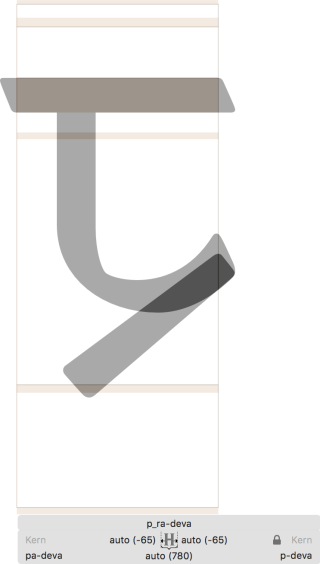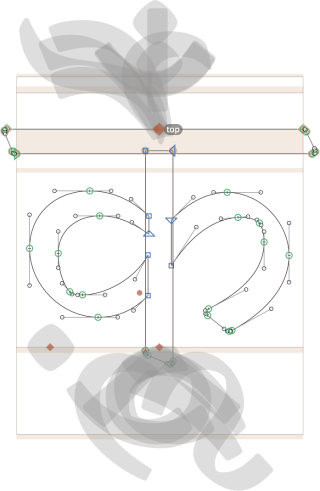
Creating a Devanagari font
Devanagari, used for languages such as Hindi, Marathi, Nepali, and many more, is the widest used script in India. While each designer might have their own workflow, this tutorial illustrates our recommended step-by-step process to build a Devanagari font by utilizing all of Glyphs’ cool features!
Setting up a Devanagari font file
When you create a new file in Glyphs (File > New, Cmd-N), it will open a window with Latin characters by default. There are two ways to add glyphs for Devanagari – one through Glyph > Add Glyphs (Cmd-Shift-G), or from the sidebar under the Languages > Devanagari section. Right-click on the subcategories inside Devanagari to see a list of glyphs included in each section then you can select the ones to add to the font:
You can see that all Devanagari glyphs have descriptive glyph names and a -deva suffix. This makes it possible for the app to determine the script of the glyph and automatically build the appropriate OpenType code later on.
The first step
Let's start with the most basic element of a Devanagari letter, the vertical stroke as found in aaMatra-deva. This defines the most basic proportions of our Devanagari letterforms, and it is used in most glyphs. So it would be great if we could design it once, and use it as a component in all the other glyphs needing it. You will find this character listed in the sidebar under Languages > Devanagari > Vowels. Or you can manually add it by typing Cmd-Shift-G, then, in the upcoming dialog, aaMatra-deva and pressing the Generate button.
You can also go ahead and add a value for the shoulder-line with the shoulderHeight custom parameter in File > Font Info > Masters (cmd-I). This will help the placement of anchors in not only the aaMatra-deva, but many other glyphs as well.
A note about spacing: Devanagari usually has a connecting headline, so you will probably want to extend the headline out slightly, so the sidebearings have negative values. You can define a standard value here and it will apply to many glyphs later on as well. Don’t worry, if you change your mind later, it’s very easy to update everything at once.
Setting anchors
It is never too early to start thinking about anchors. Most vowel and intonation marks will align in the same place relative to the vertical stem, so we can simply add anchors to the aaMatra-deva and they will be automatically copied to any glyph using this as a component. With the shoulderHeight defined, you only need to run Glyph > Set Anchors (Cmd-U), and the anchors will be automatically added at the correct vertical height. You may need to move them horizontally depending on your design.
Building composites from half-consonants and half-forms
Now we can prepare the components needed for the consonants. Most of the consonants are constructed with a half-form connected to the aaMatra-deva. These half-forms are not only used to form the full consonants, but also to build conjuncts – the ligatures of two or more consonants where the inherent vowel aaMatra-deva has been deleted (e.g. ‘pepper’ = पेप्पर). More about conjuncts later, let’s first design the p-deva, which is the half-form of pa-deva. You may now want to go ahead and add the half-forms from the aptly named Halfform section in the sidebar.
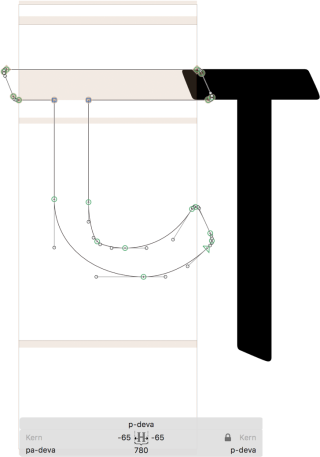
To create the full consonant pa-deva, we can generate that glyph (via Glyph > Add Glyphs…, Cmd-Shift-G), then add the p-deva and aaMatra-deva as components by choosing Glyph > Add Component (Cmd-Shift-C) for both of them. If you are not happy with the alignment, you can just adjust the right sidebearing of the p-deva to look good next to an aaMatra-deva, then the pa-deva should automatically match perfectly.
Using this approach, we can design much of the basic Devanagari consonants. Let’s go ahead and add some more in the same way:
Completing the basic consonants
You will notice that not all consonants can be built from half-forms, e.g., glyphs like ka-deva, pha-deva, and ha-deva. These will need custom designed full forms. In cases like this, we generally draw the full forms first, then use those as the basis for their half forms.
There is also a small set of hanging consonants that do not have normal half-forms: tta-deva ttha-deva ddha-deva da-deva nga-deva. Instead of turning into a half-form, they receive a ‘halant’ at the bottom (also referred to as ‘virama’). In other words, now may be a good time to draw the halant-deva glyph. Find it in the sidebar under Languages > Devanagari > Marks. Do not forget to hit Cmd-U to give the halant an anchor.
Once you have the hanging consonants and the halant in your font, you can create the remaining consonants: Choose Glyph > Add Glyphs… and paste this:
tt-deva tth-deva dd-deva ddh-deva d-deva ng-deva
Then press Generate. I.e., the same glyph names, but without the a at the end. Glyphs is smart enough to create them right away as compounds of the respective hanging consonant and the halant.
Spacing consonants and kerning groups
So, that is an overview of our recommendations for developing Devanagari fonts. Gone are the days of being overwhelmed by complicated OT coding, you can now just focus on making beautiful typefaces and let Glyphs do the heavy lifting in production.
SAMPLE FONT: VESPER DEVANAGARI BY MOTA ITALIC